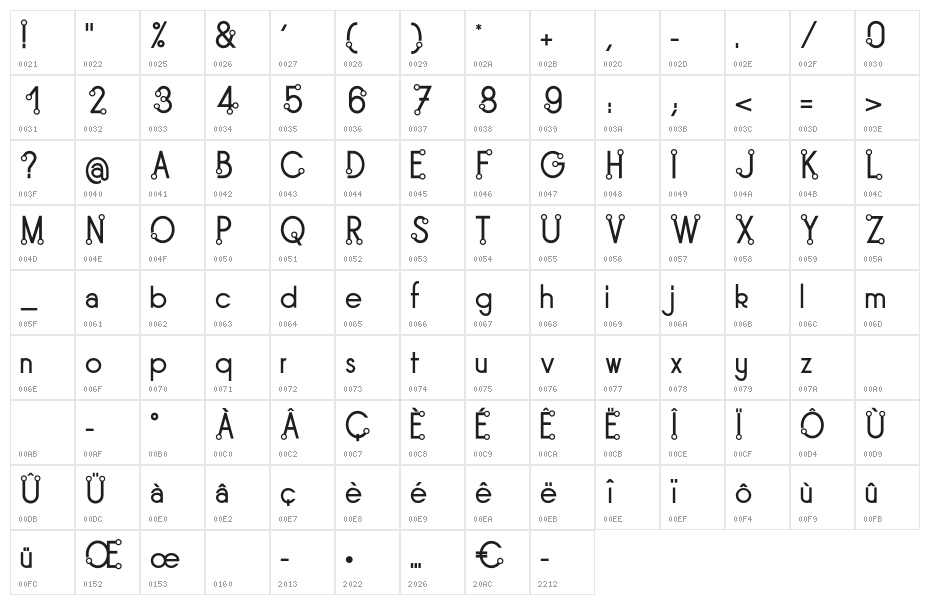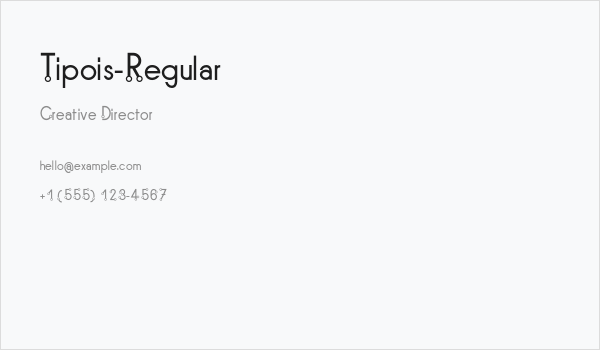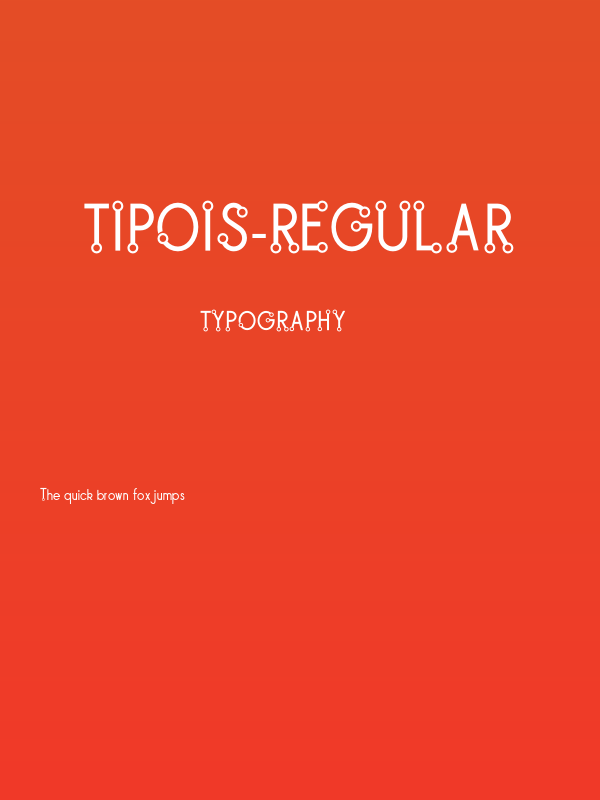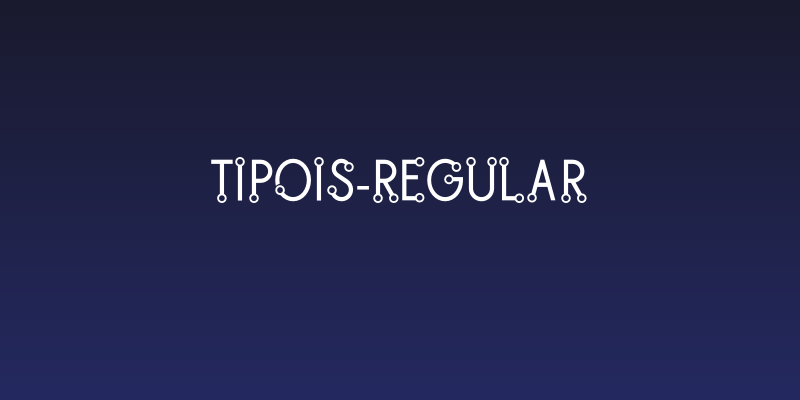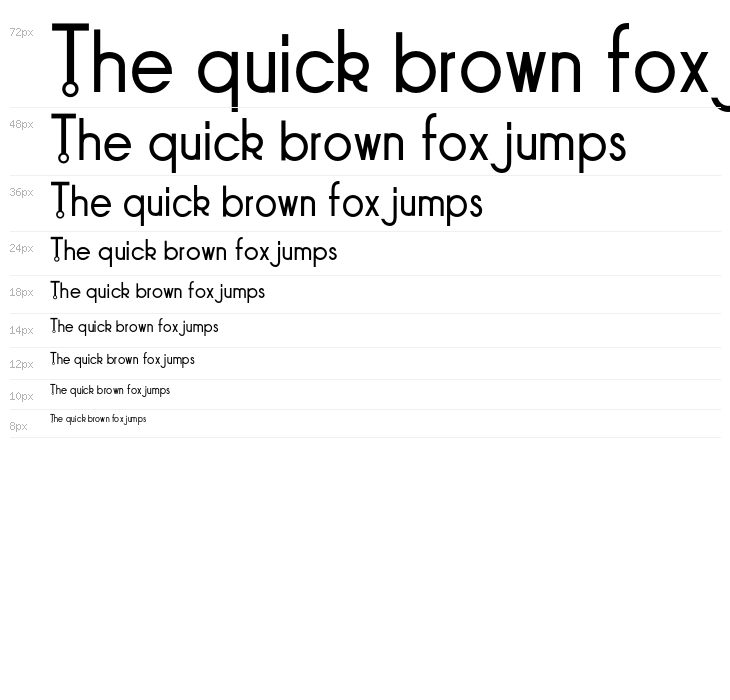
Tipois-Regular Font
Tipois-Regular Description
This font features a unique and playful design with circular elements integrated into the strokes of each character. The uppercase letters are particularly distinctive, with circles appearing at the ends of strokes, creating a whimsical and modern look. The lowercase letters maintain a clean and straightforward appearance, balancing the decorative nature of the uppercase. The numerals and special characters continue this theme, ensuring consistency across the entire typeface. This font is ideal for projects that require a touch of creativity and modernity, making it suitable for branding, advertising, and digital media.
| Proposed Projects | Ideal for branding, advertising, digital media, and creative projects. |